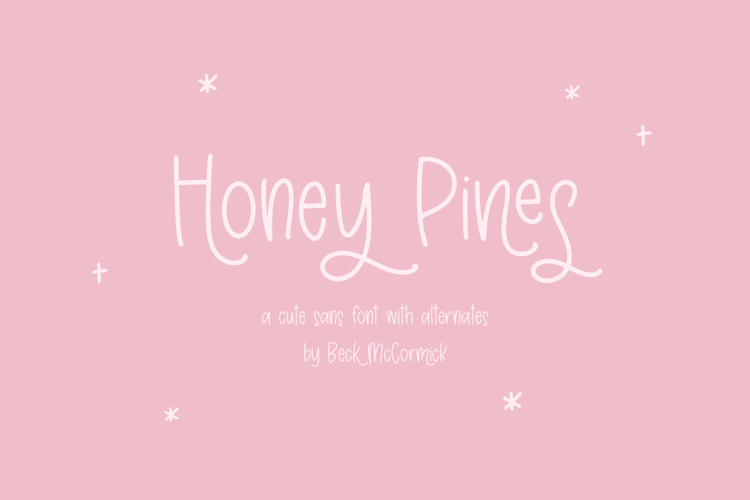
Honey Pines Sans Font
Honey Pines Sans is a legible sans font with cute alternate characters. Honey Pines is perfect for note taking apps and planner apps like Goodnotes. The alternate characters give a bit of extra adorable personality, and the sweetly nested letters add to the hand lettered aesthetic. Use Honey Pines Sans for holiday & seasonal designs like Christmas cards, gift tags, or holiday decor. Honey Pines is also a great fit for whimsical and playful branding, social media graphics, and marketing.
- 24 alternate characters - A, H, J, K, M, N, Q, R, S, T, X, Y, a, e, g, h, i, j, k, m, n, o, s, t, u, y